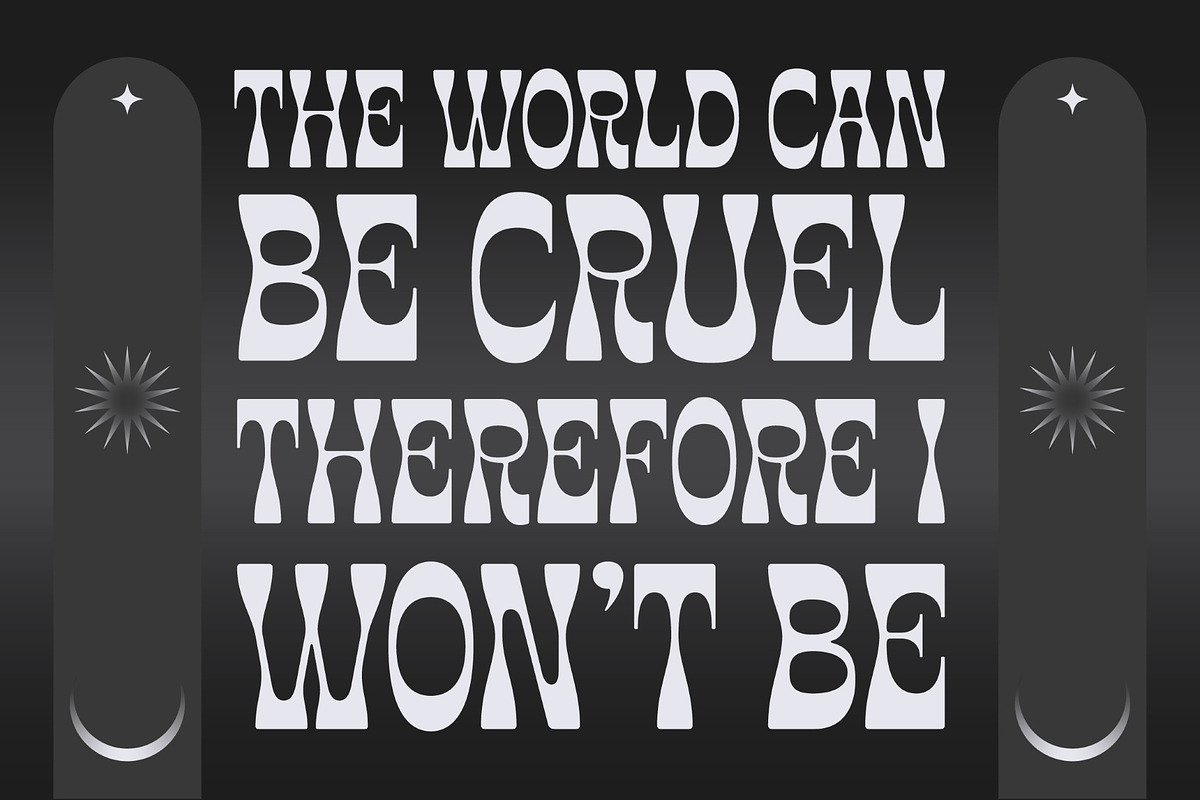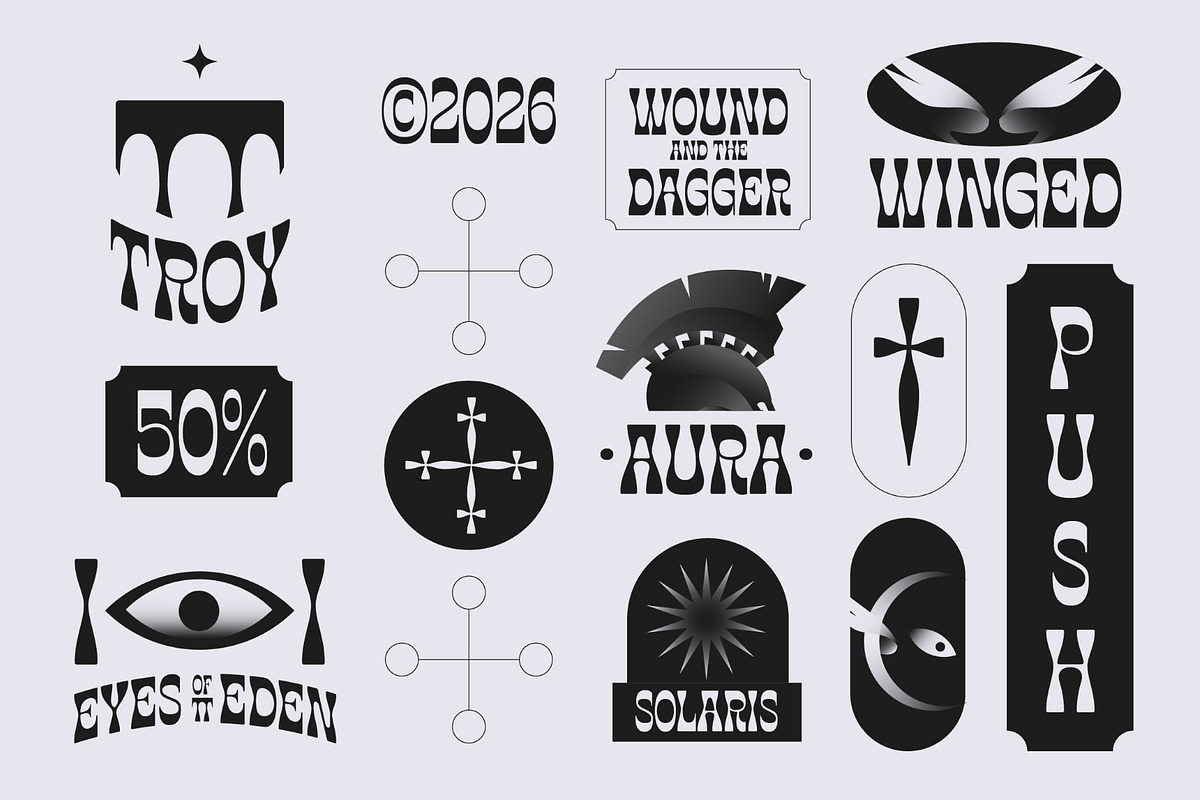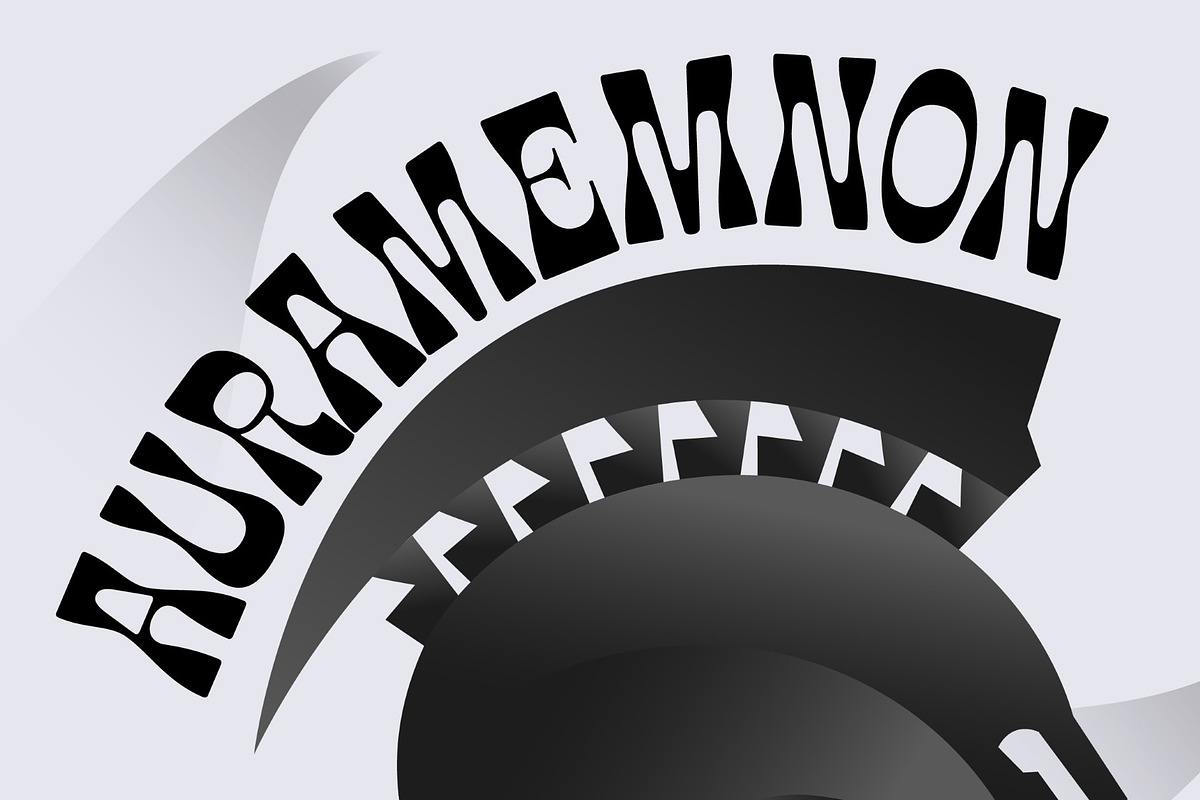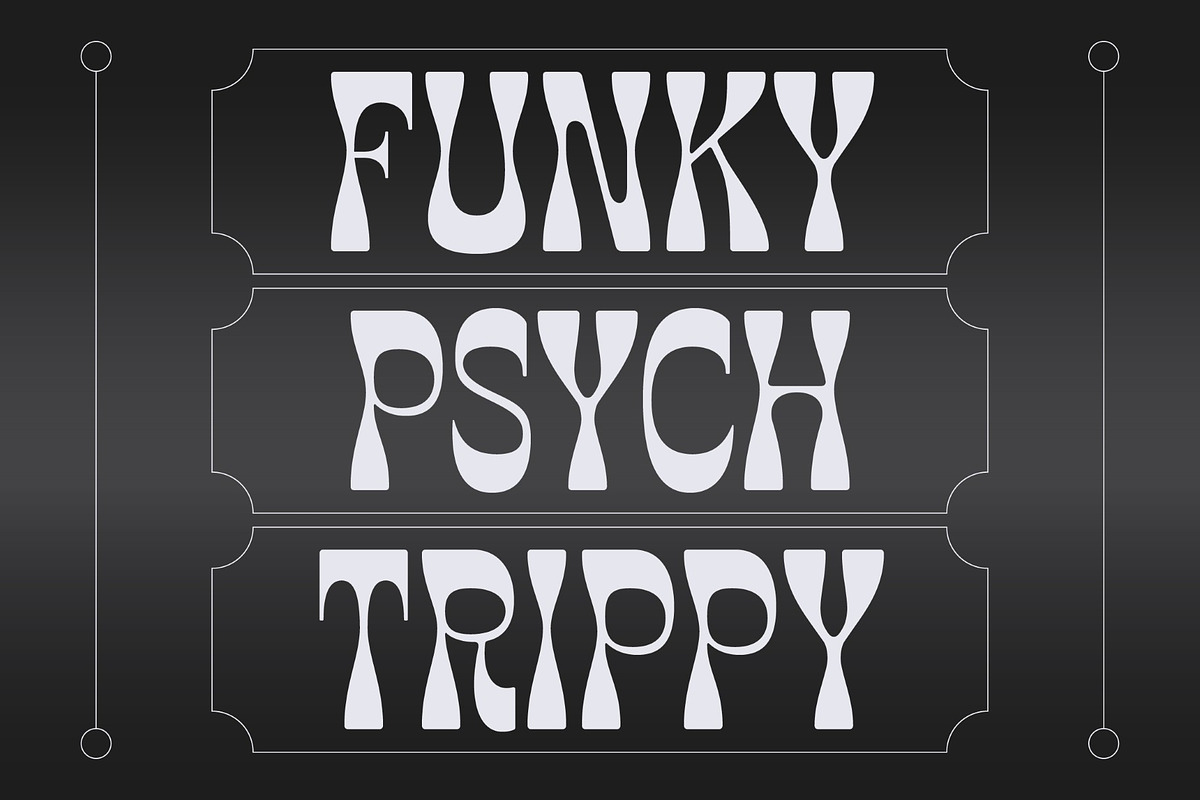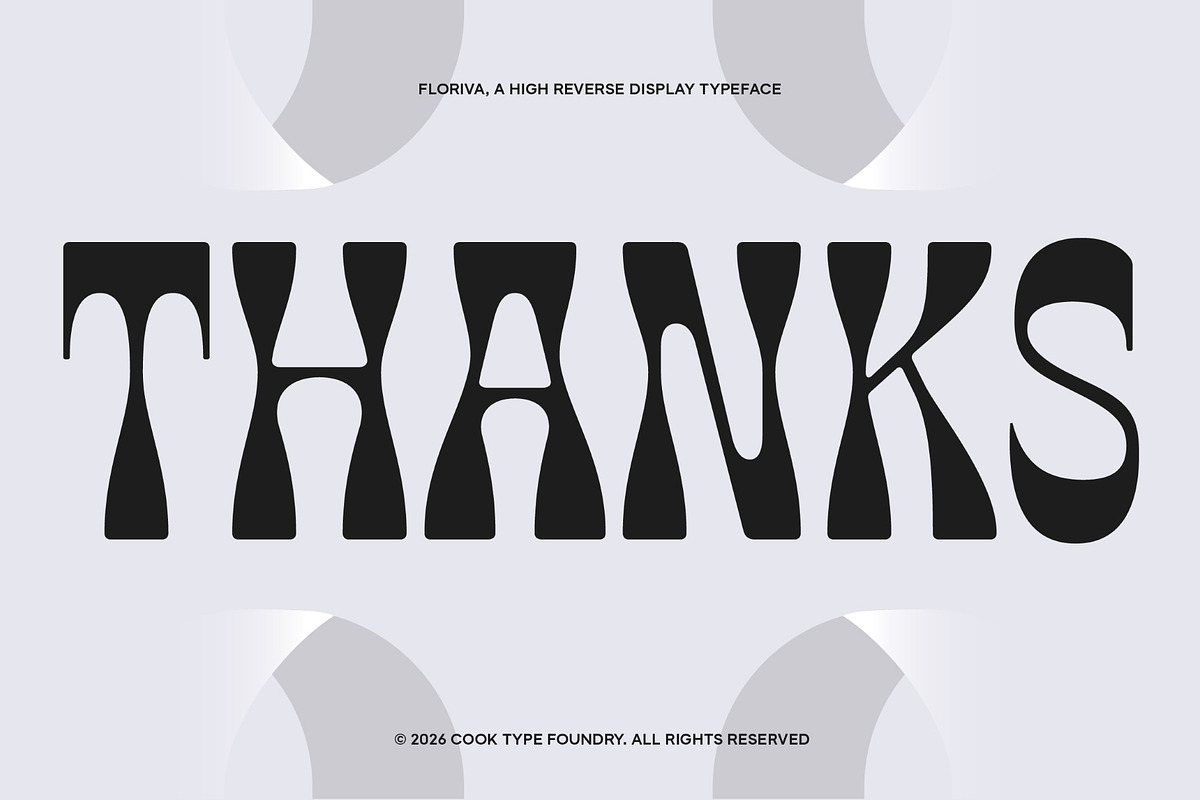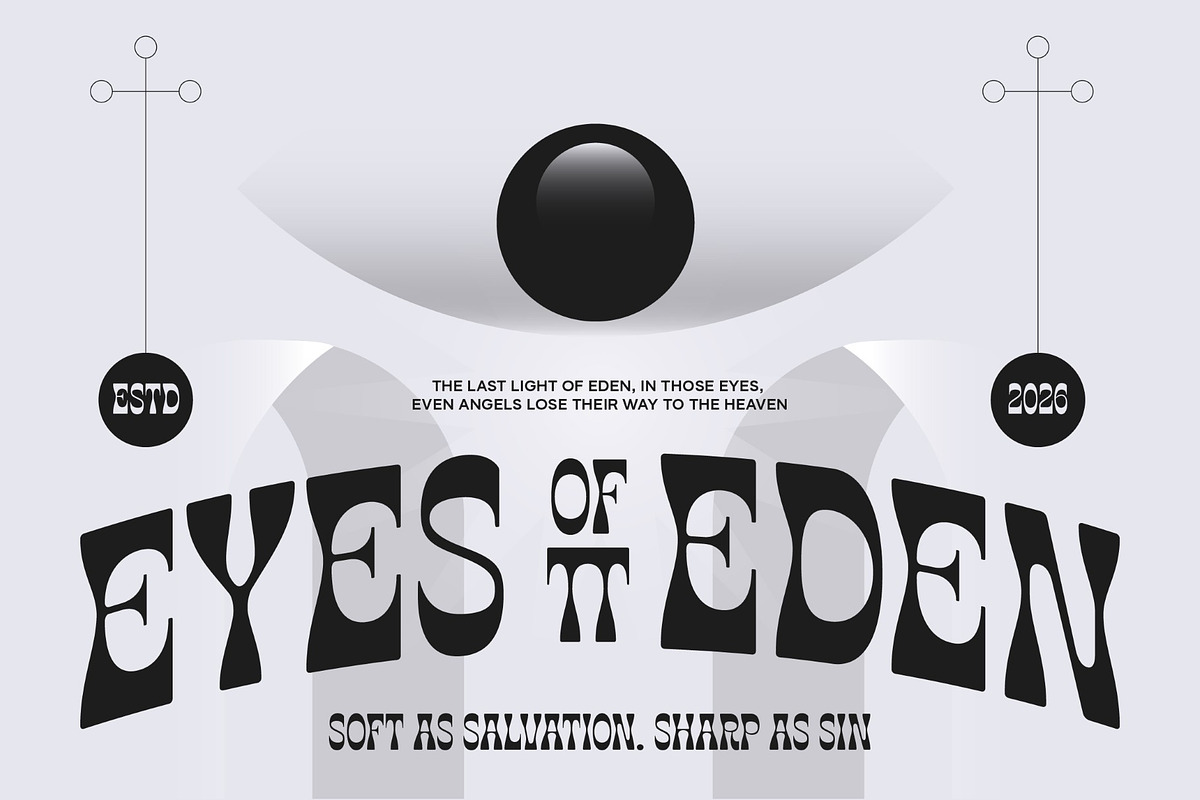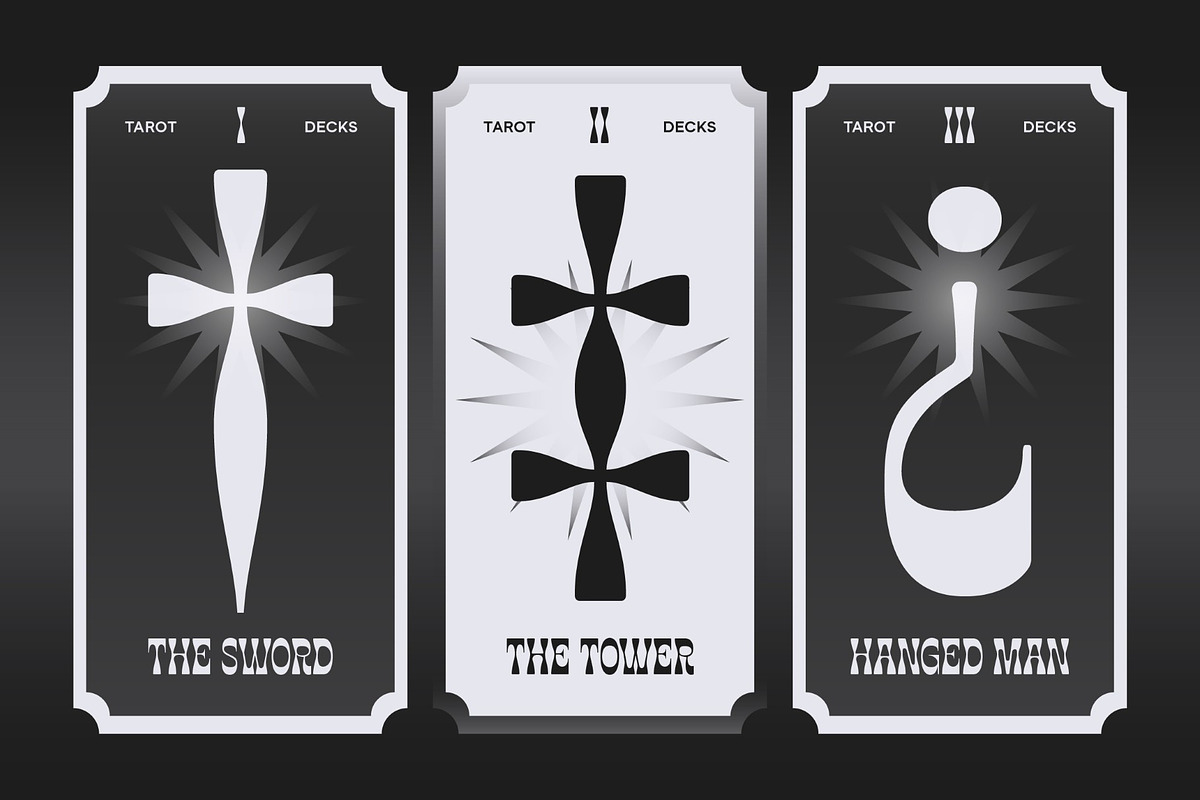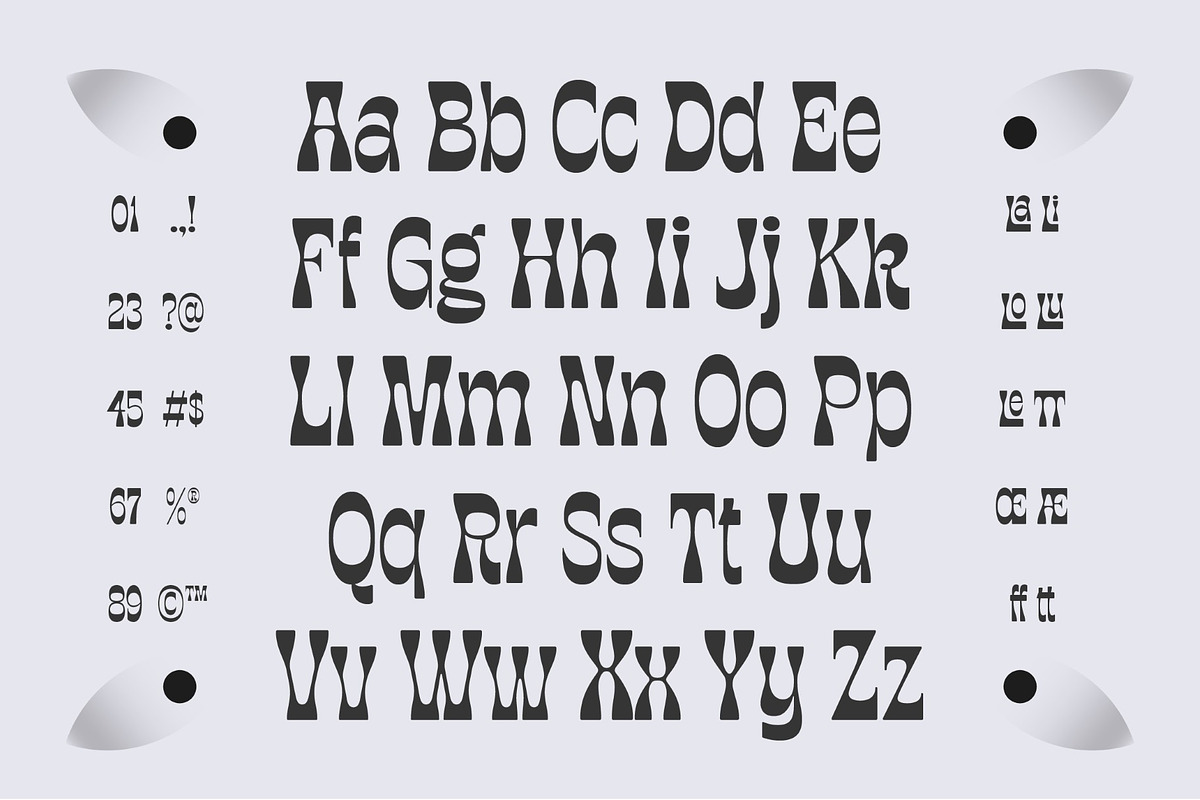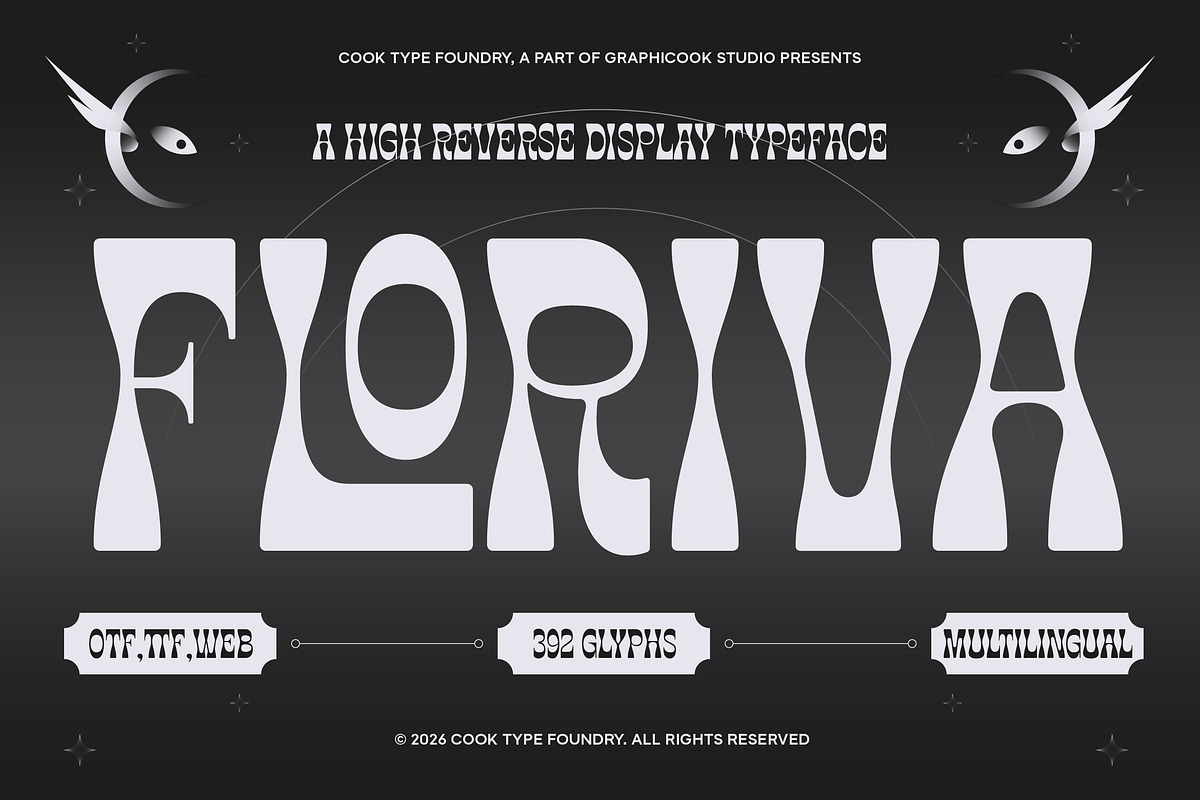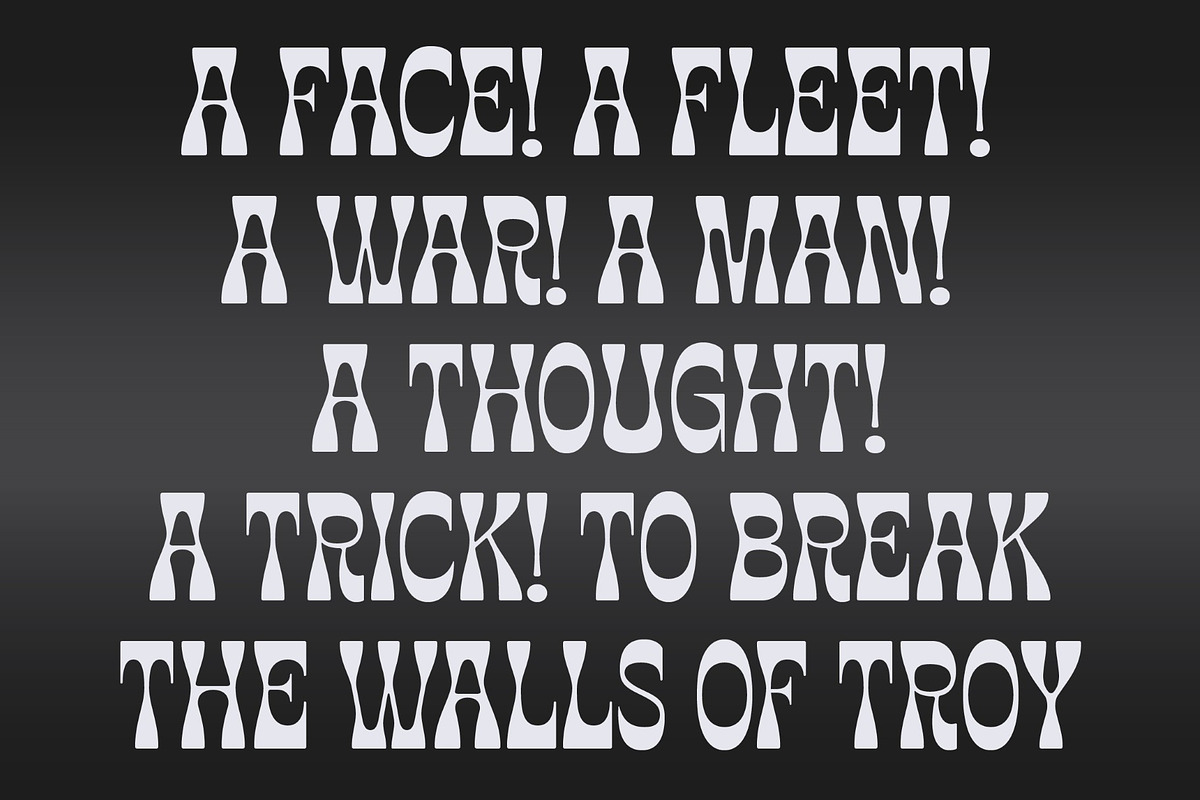
Floriva
Floriva is a high-contrast display typeface with an unconventional, fluid silhouette that brings a dramatic and artistic character to every letter. Its exaggerated curves, narrow transitions, and sculptural forms create a bold visual statement with a surreal, fashion-forward aesthetic.
It is perfect for headlines, logotypes, magazines, packaging, quotes, movies, games, cover albums, book covers, and flyers, it's a perfect solution for creating eye-catching designs that stand out in any context.